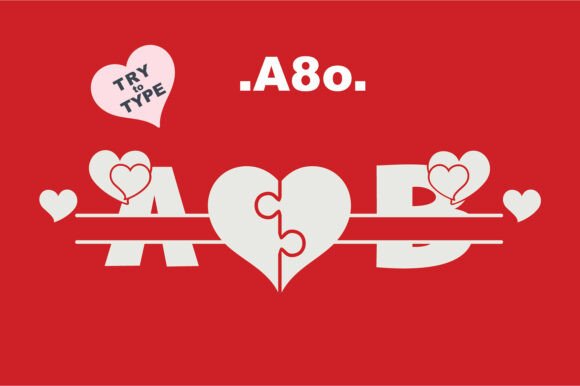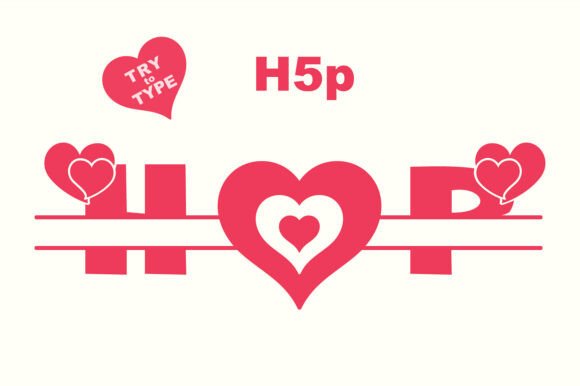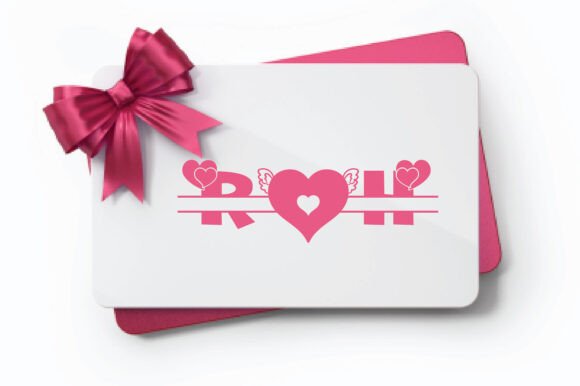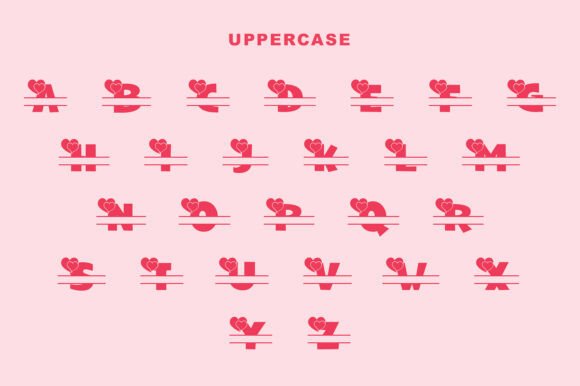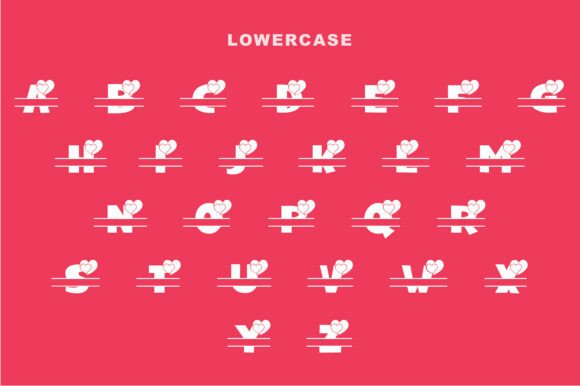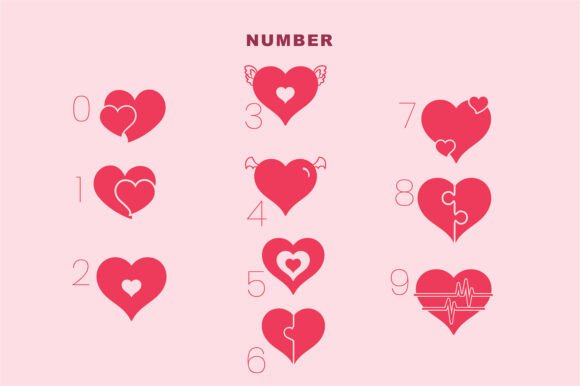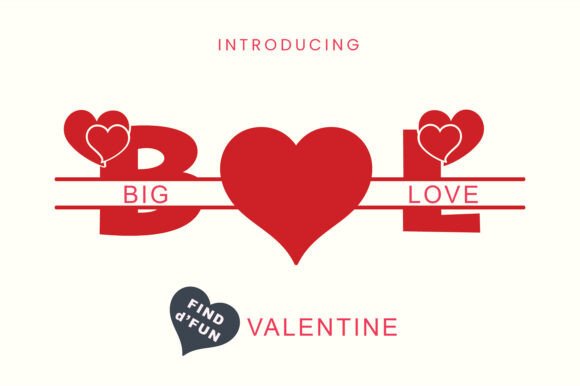
Introducing Big Love Font: The Perfect Typeface for Your Valentine’s Day Projects
Are you looking for a font that will add a touch of love and whimsy to your designs? Look no further than Big Love Decorative Font! This charming and playful typeface is designed to bring a sweet and unique touch to your creations, making it perfect for Valentine’s Day projects, romantic messages, and gift designs.
A Delightful Combination of Uppercase, Lowercase, and Numbers
Big Love Decorative Font features a delightful combination of uppercase, lowercase, and numbers, making it a versatile and functional font for a wide range of design projects. Whether you’re creating a Valentine’s Day card, invitation, poster, or social media post, this font has everything you need to create a beautiful and eye-catching design.
Perfect for Valentine’s Day Projects
Valentine’s Day is just around the corner, and Big Love Decorative Font is the perfect font to help you create adorable and romantic designs. Its decorative elements add a whimsical and romantic feel, making it ideal for:
• Valentine’s Day cards and invitations
• Romantic posters and flyers
• Social media posts and graphics
• Gift tags and labels
Whimsical and Romantic Feel
The decorative elements of Big Love Decorative Font give it a whimsical and romantic feel that’s perfect for creating designs that are sweet, charming, and unique. The font’s playful and curly lines add a touch of femininity and elegance, making it ideal for designers and crafters who want to create designs that are both romantic and eye-catching.
Easy to Use and Customize
Tips for Using Big Love Decorative Font
Here are some tips for using Big Love Decorative Font in your designs:
• Use it as a headline font to add a touch of whimsy and romance to your designs
• Pair it with a simple font to create a beautiful contrast
• Experiment with different colors and textures to add depth and interest to your designs
• Use it to create custom illustrations and graphics
Why Choose Big Love Decorative Font?
So why choose Big Love Decorative Font for your designs? Here are just a few reasons:
• Unique and eye-catching design
• Perfect for Valentine’s Day and romantic designs
• Easy to use and customize
• Versatile and functional
• Whimsical and romantic feel
Big Love Decorative Font is a charming and playful typeface that’s perfect for adding a touch of love and whimsy to your designs. With its delightful combination of uppercase, lowercase, and numbers, this font is ideal for creating adorable Valentine’s Day projects, romantic messages, and gift designs. So why wait? Download Big Love Decorative Font today and start creating your own sweet and unique designs!
• Delightful combination of uppercase, lowercase, and numbers
• Perfect for Valentine’s Day and romantic designs
• Whimsical and romantic feel
• Easy to use and customize
• Versatile and functional
Whether you’re a designer, crafter, or DIY enthusiast, Big Love Decorative Font is the perfect addition to your font collection. So go ahead, get creative, and show your love and appreciation with Big Love Decorative Font!